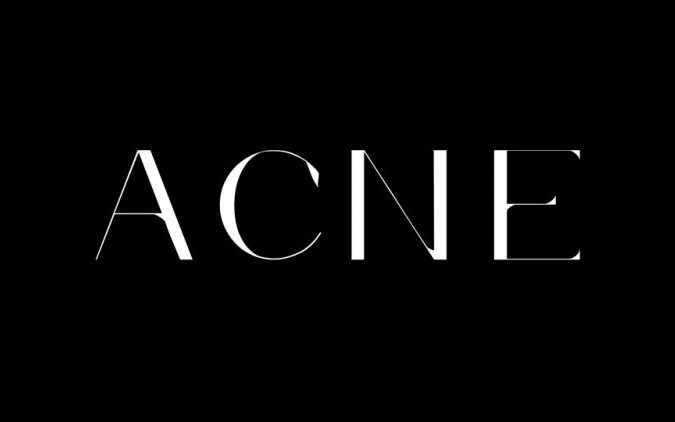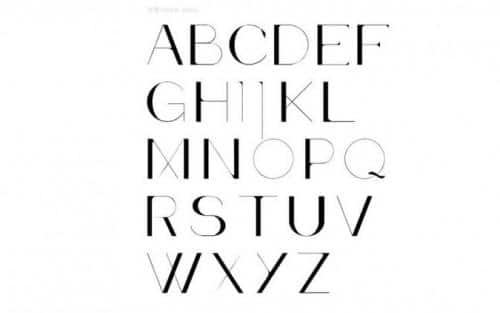
A quick experimental font inspired by the brand Acne and the fashion sort of vibe. This is a cute little sans font that would be perfect for Comic, books, greeting cards, toys, posters, picture books or anything that requires a fun and happiness look!
- Designer: iTypeface